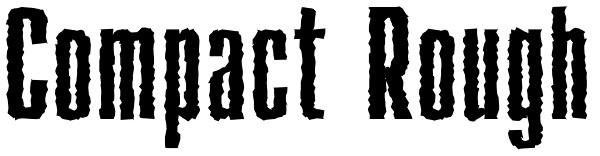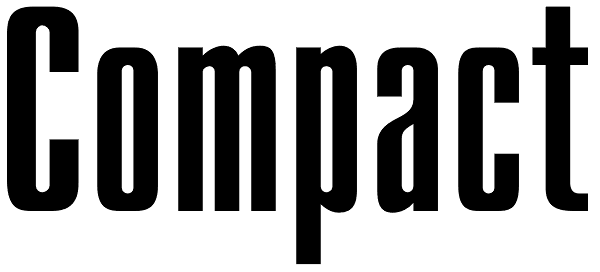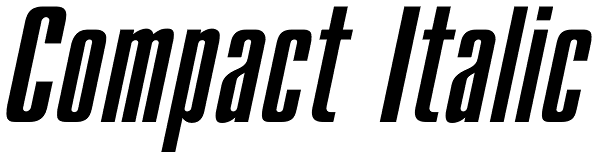
Compact
The typeface was designed at ParaType (ParaGraph) in 1991 by Vladimir Yefimov. Based on Anons by Gennady Baryshnikov. An extra condensed sans serif. For use in advertising and display typography. The decorative styles were added in 1997 by Alexander...